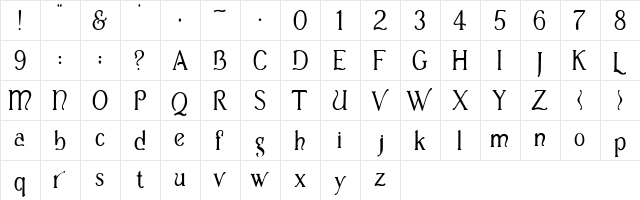
Casua Regular
| Designer | PJL |
Design Context for Casua Typeface
Casua offers clean, dependable letterforms without strong stylistic allegiance, making it a practical choice for designers who need flexibility.